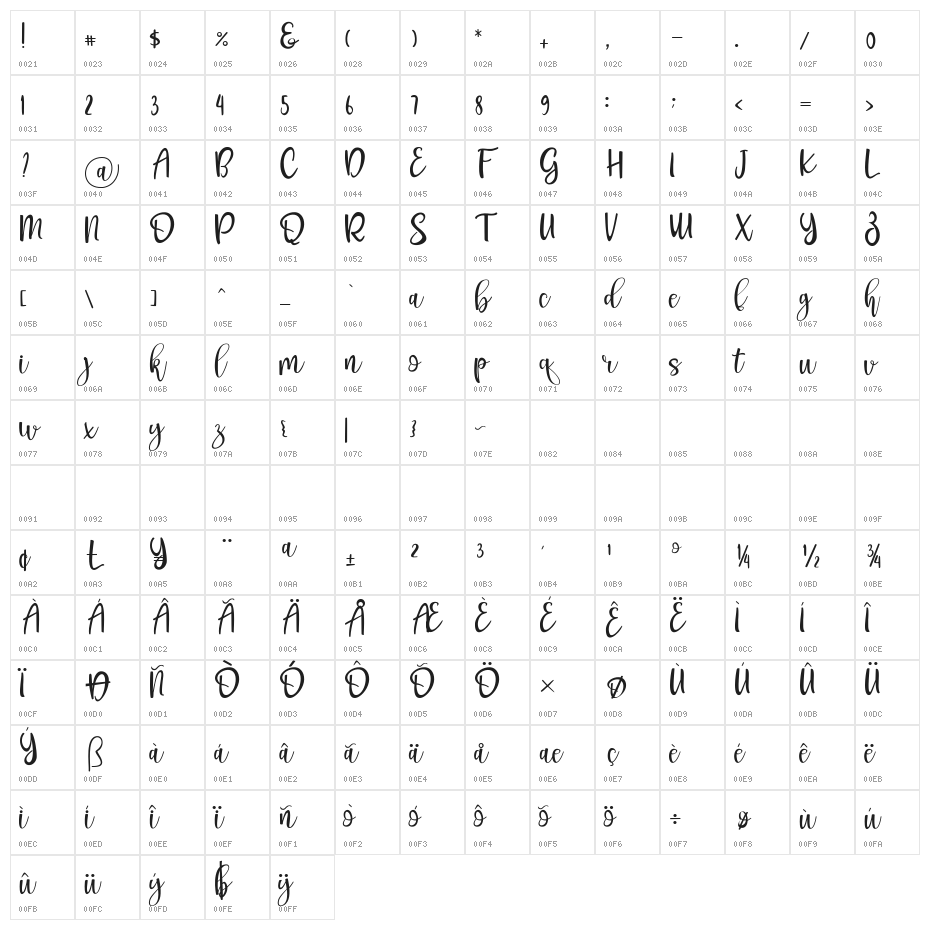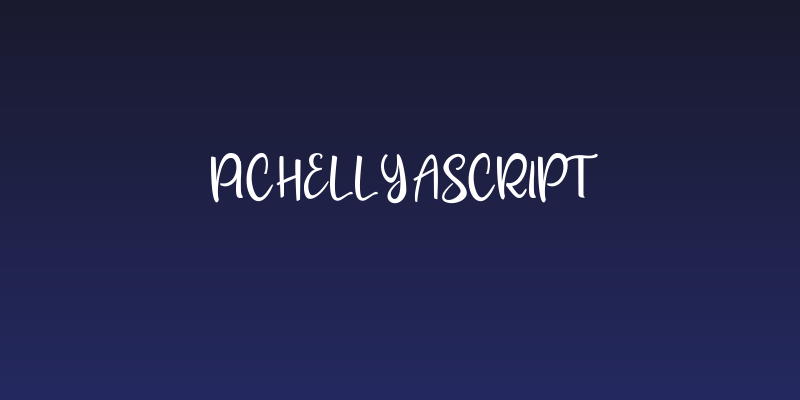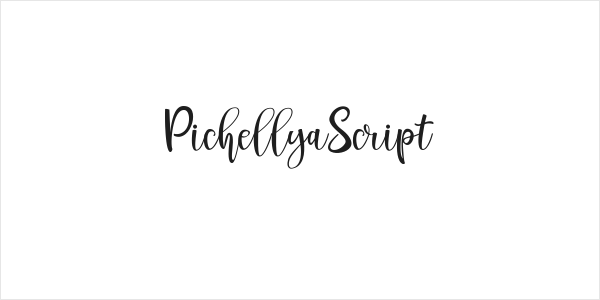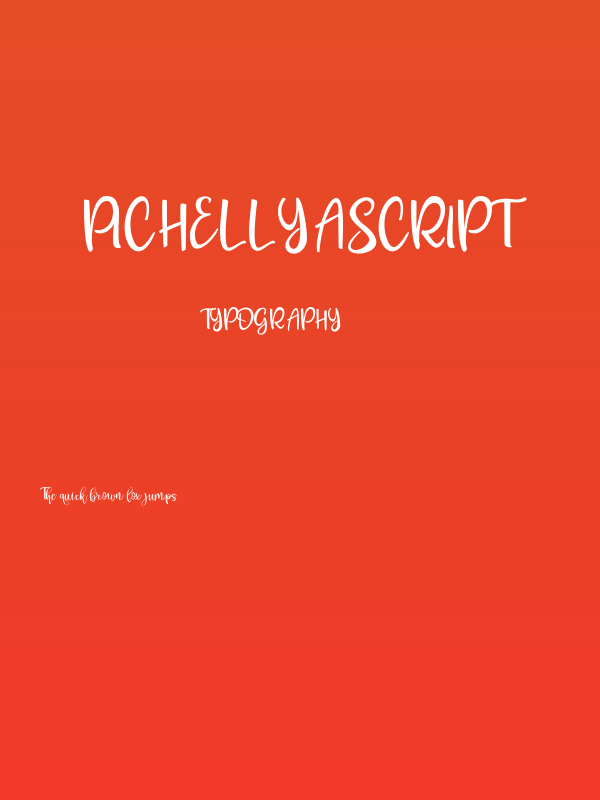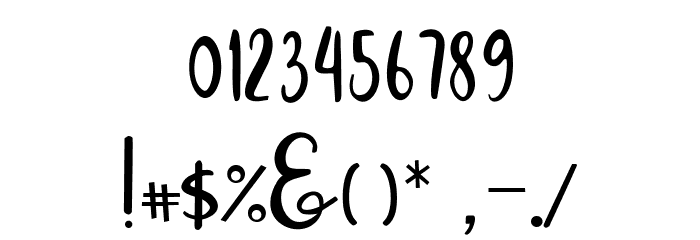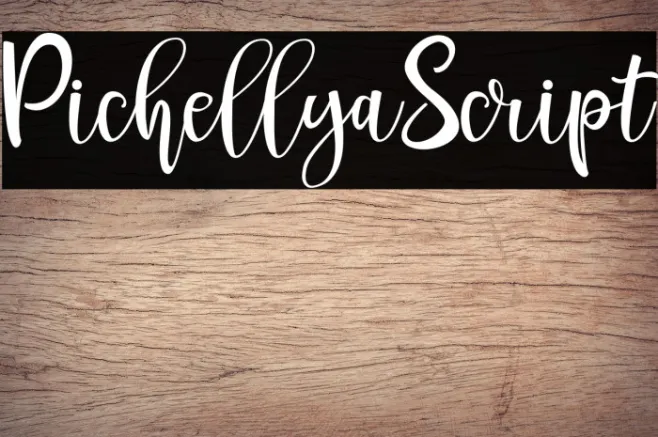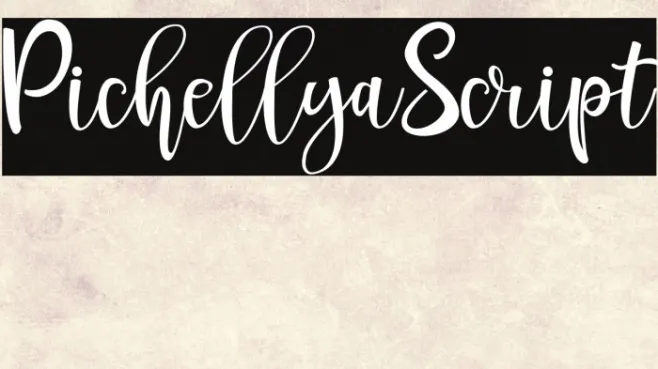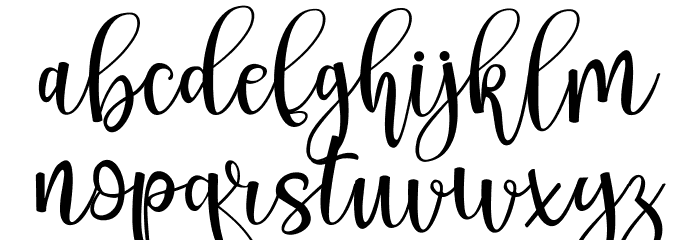
PichellyaScript Font
PichellyaScript Description
This font exudes a playful and elegant script style, characterized by its flowing, cursive letterforms. The uppercase letters are bold and slightly slanted, adding a dynamic feel, while the lowercase letters maintain a consistent fluidity with loops and swashes that enhance its decorative appeal. The numerals and special characters complement the overall script style, ensuring versatility across different uses. The font's design is both modern and timeless, making it suitable for a variety of creative projects.